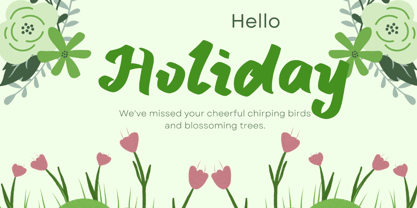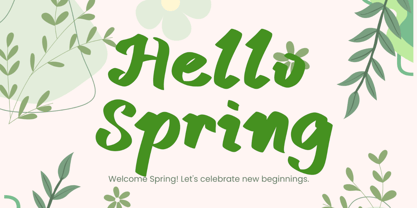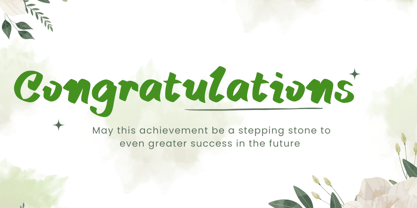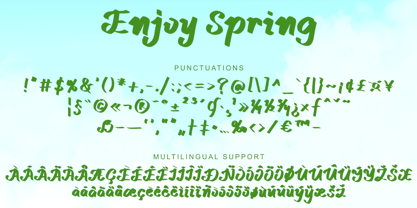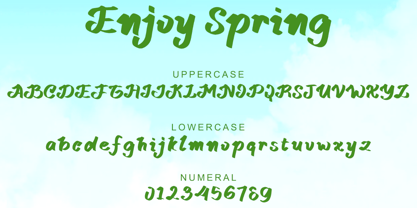
Enjoy Spring
by Yoga Letter
The Enjoy Spring Font Family was designed by Isroni Yoga Prasetya and published by Yoga Letter. Enjoy Spring contains 1 styles.
"Enjoy Spring" is a unique and beautiful display font. This font is equipped with uppercase, lowercase, numerals, punctuations and multilingual support. It is very suitable for use in spring, summer, holiday, easter, birthday, invitations, print, branding, sticker, wedding, photography and others.